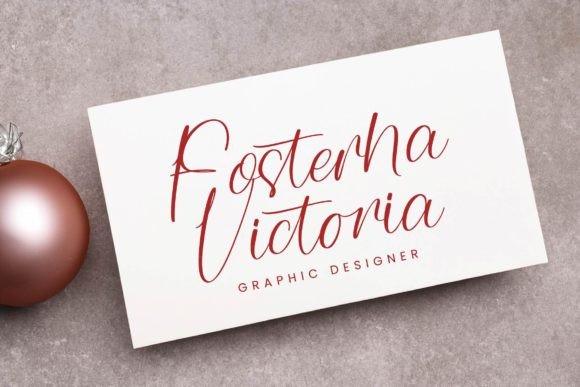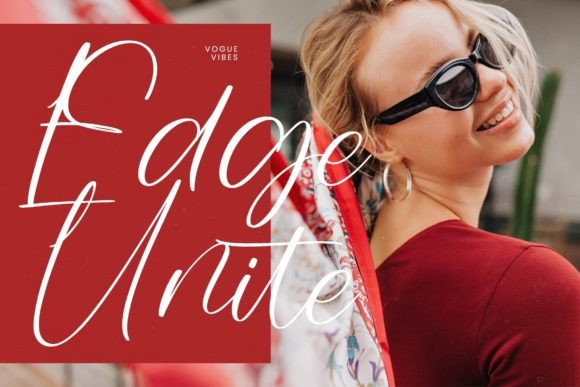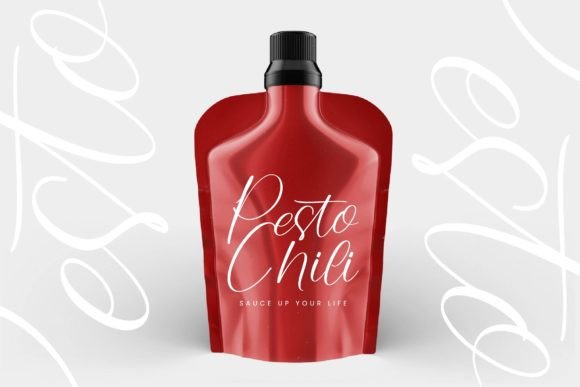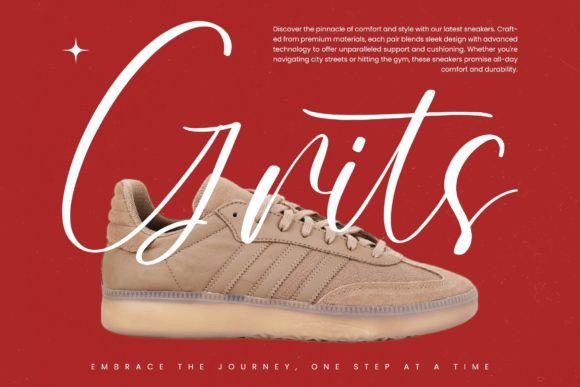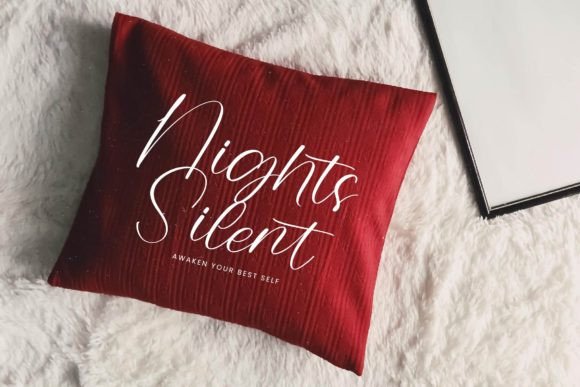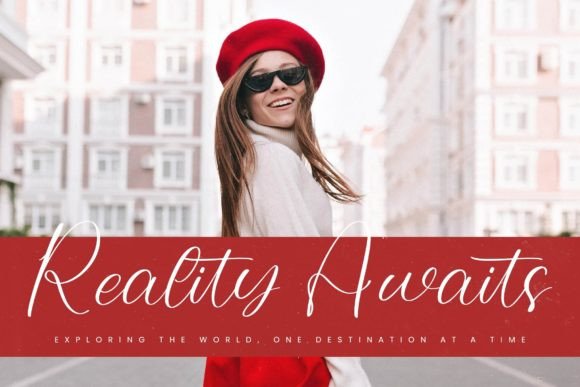
Unleashing the Magic of Boquet Khalista Font
Have you ever stared at a blank page, struggling to find the perfect font to convey the emotions and elegance of a special occasion? I know I have. As a designer, I’ve spent countless hours searching for the perfect script font to add that extra touch of class to my designs. And then, I stumbled upon the Boquet Khalista Font – a game-changer in the world of typography.
This beautiful, elegant script font is designed to add a touch of sophistication to any design. With its flowing, cursive letters, the Boquet Khalista Font is perfect for invitations, greeting cards, and other special designs where you want to make a lasting impression. For designers, the Boquet Khalista Font is a valuable tool that can elevate their designs and help them stand out from the crowd.
Boquet Khalista Font Key Features
- Font Family: Boquet Khalista is a unique, handwritten font family that includes multiple styles and weights, allowing for a wide range of creative applications.
- Character Set: Boquet Khalista includes a comprehensive character set, covering Latin, Cyrillic, and Greek alphabets, as well as a range of punctuation and special characters.
- Unique Characteristics: Boquet Khalista features a distinctive, hand-drawn style with varying line widths and organic flourishes, giving it a highly expressive and artistic feel.
- Font Metrics: The font’s metrics are carefully crafted to ensure optimal readability and legibility, making it suitable for a wide range of typographic applications.
Designer Review: Boquet Khalista Font
Overall, I’m quite impressed with Boquet Khalista Font. ✨ The font’s unique combination of elegance and sophistication makes it perfect for luxury branding and high-end design projects. ✨ The font’s intricate details and flourishes add a touch of sophistication, making it stand out from more generic sans-serif fonts.
One of the standout features of Boquet Khalista Font is its versatility. ✨ It can be used for a variety of purposes, from logos and headers to body text and captions. ✨ The font’s high x-height and wide range of weights make it easy to read and set in various contexts.
While Boquet Khalista Font is a beautiful font, it does have some limitations.
- ⚠️ The font’s complexity can make it difficult to pair with other fonts. The intricate details and flourishes may clash with simpler fonts, creating a disjointed look.
- ⚠️ The font’s high x-height can make it appear slightly clumsy at smaller font sizes. This may be a concern for designers who need to use the font in tight spaces.
Despite its limitations, I highly recommend Boquet Khalista Font for designers who want to add a touch of luxury and sophistication to their projects. With its unique combination of elegance and versatility, this font is sure to make a statement.
Tips for Getting the Most Out of Boquet Khalista Font
Here are some tips for getting the most out of Boquet Khalista Font:
- Use Boquet Khalista Font for titles and headings to add a touch of elegance.
- Pair Boquet Khalista Font with a serif font for body text to create a visually appealing contrast.
- Experiment with different font sizes and styles to add emphasis to your text.
Boquet Khalista Font is ideal for:
- Wedding invitations and station
Alternatives to Boquet Khalista Font
Comparison to Boquet Khalista Font: Ostrich Sans has a more geometric and modern feel compared to Boquet Khalista’s elegant and sophisticated vibe. It’s a good choice for projects that require a clean and minimalistic design aesthetic.
Q: Can I customize the Boquet Khalista font for my specific design needs?
Yes, the Boquet Khalista font is a highly customizable font. It supports a range of OpenType features, including ligatures, swashes, and stylistic sets. You can access these features in most design applications that support OpenType fonts, such as Adobe Creative Cloud and Sketch.